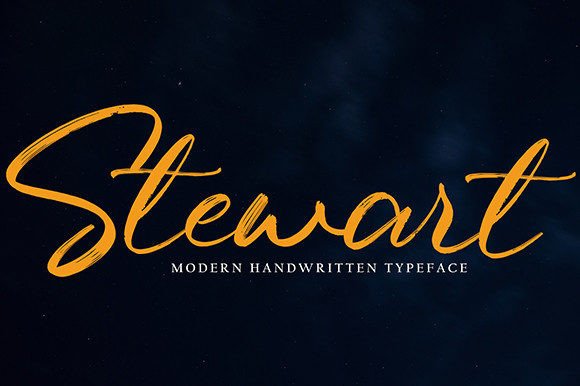
Immerse yourself in the world of enchanting scripts, where the Stewart Font family takes center stage. This exquisite collection of flowing handwritten fonts will ignite your creativity and transform your designs into masterpieces.
Crafted with meticulous love by the visionary Pineungtype and Missinklab, Stewart is not just a font; it's an experience that captures the essence of timeless elegance. Each letter dances across the page with a graceful fluidity, effortlessly evoking a sense of sophistication and charm.
Whether you're a seasoned designer or a calligraphy enthusiast, Stewart's versatility will captivate your imagination. Its meticulously crafted curves and delicate swashes add a touch of whimsy and sophistication to any project, from heartfelt letters and wedding invitations to enchanting logos and eye-catching branding.
With Stewart, you can effortlessly create designs that speak volumes. Its enchanting characters seamlessly flow together, creating a harmonious symphony of visual delight. Embrace the beauty of handwritten artistry and let Stewart's elegant touch elevate your creations to new heights.
So, embark on a journey of artistic exploration with Stewart. Allow its captivating charm to infuse your designs with a timeless allure that will leave a lasting impression. Experience the magic of Stewart today and unleash the boundless creativity within you!